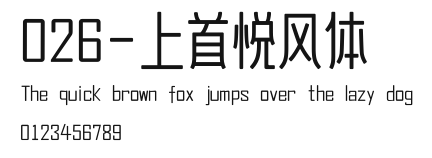
026-上首悦风体 Preview
• Font Name: 026-上首悦风体
• Full Font Name: 026-上首悦风体
• Manufacturer: 上首造字
About 026-上首悦风体.ttf
026-上首悦风体.ttf is a modern, elegant sans-serif font designed for ultimate readability and visual harmony. Perfect for branding, headlines, web design, and print materials.